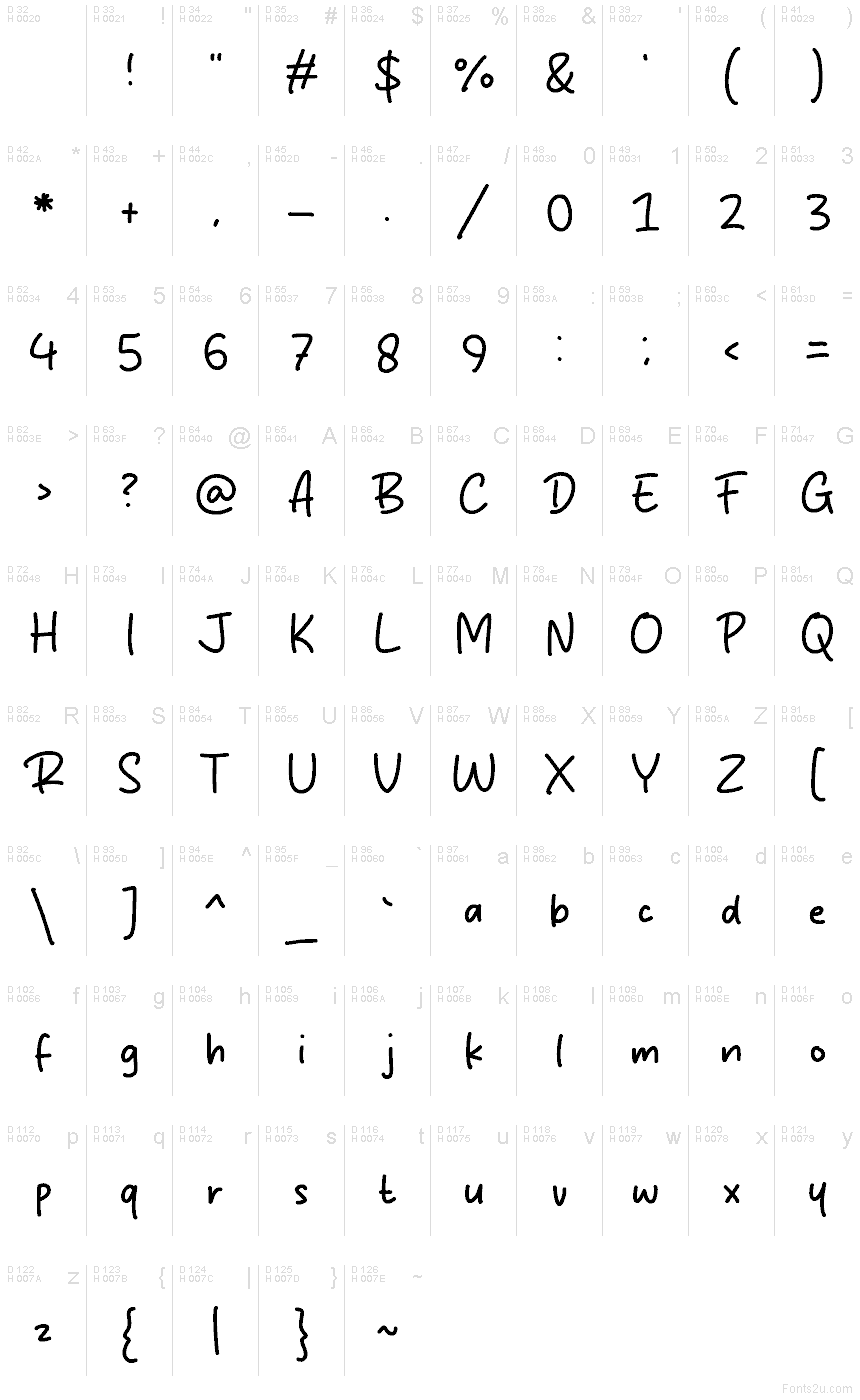
Rumble Strike
Rumble Strike font is a handwritten gem by MJType, showcasing casual elegance and modern flair. Its freeform script style exudes a friendly and welcoming appearance, making it versatile for numerous creative applications.
This free handwritten font is perfect for branding projects, personal signatures, social media graphics, blog headers, invitation cards, product packaging, clothing labels, posters, book covers, and websites.